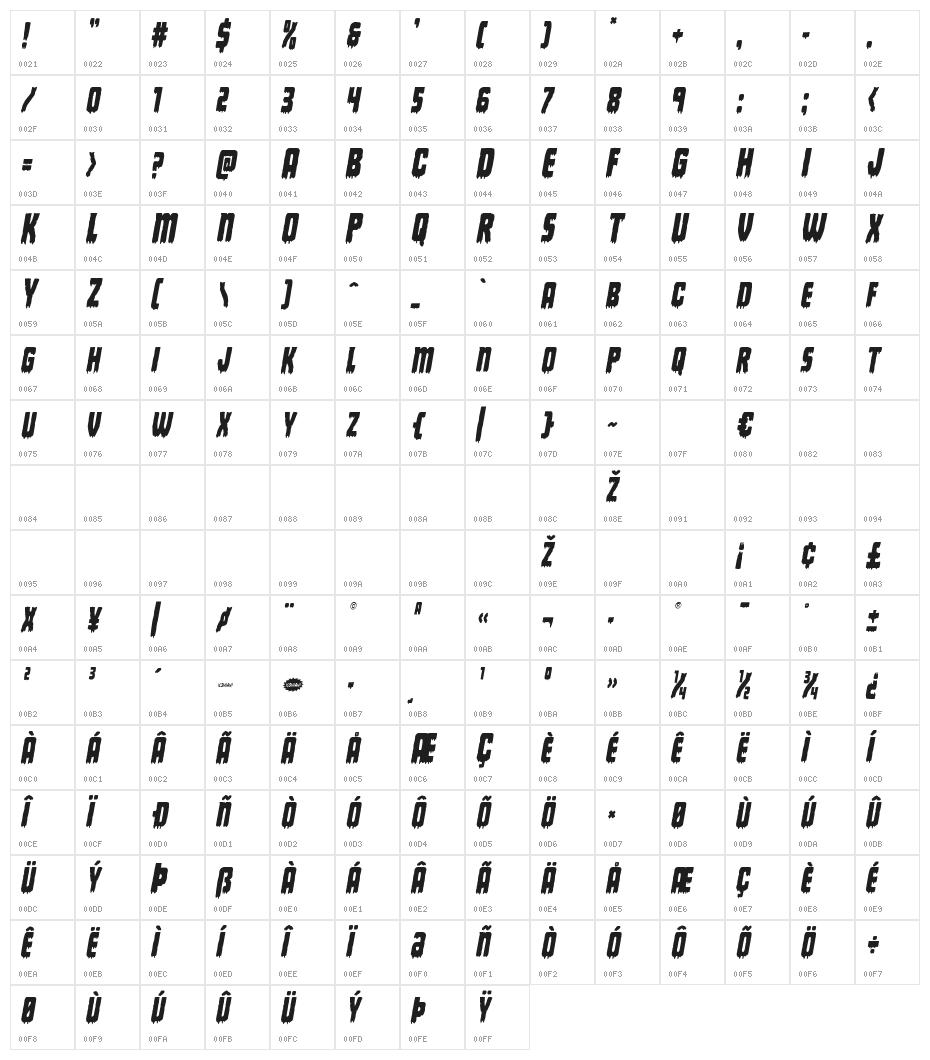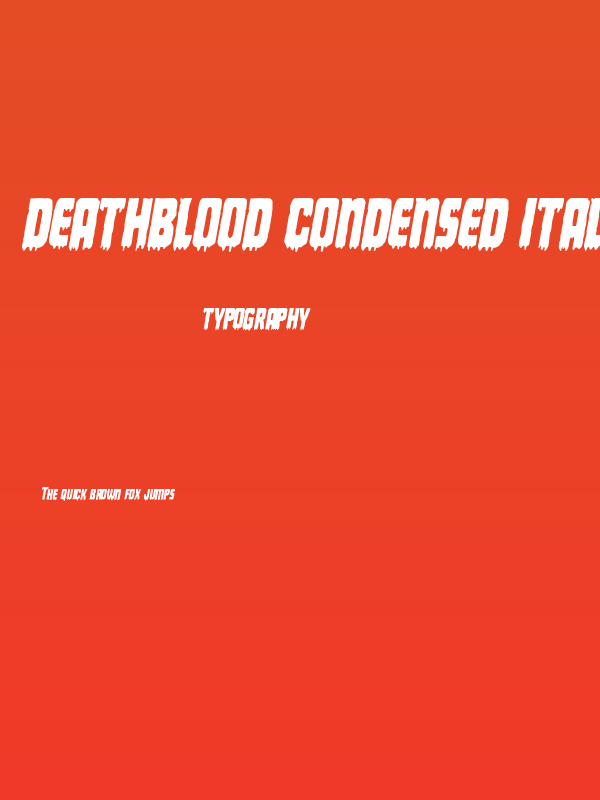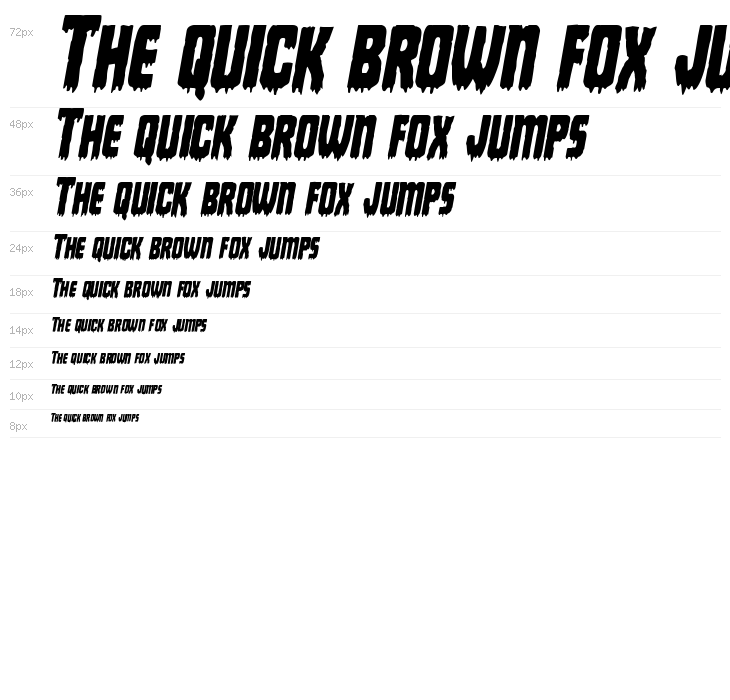
Deathblood Condensed Italic Font
Deathblood Condensed Italic Description
This font features a bold and aggressive style, characterized by its sharp, jagged edges and condensed form. The italic slant adds a dynamic and energetic feel, making it stand out with a sense of urgency and intensity. The uppercase and lowercase letters maintain a consistent height, contributing to a uniform appearance. Numbers and special characters are designed with the same boldness and sharpness, ensuring a cohesive look across all elements. The overall design is reminiscent of horror or thriller themes, making it suitable for projects that require a dramatic and impactful visual presence.
| Proposed Projects | Ideal for horror movie posters, Halloween event flyers, video game titles, and any project requiring a dramatic and intense typeface. |